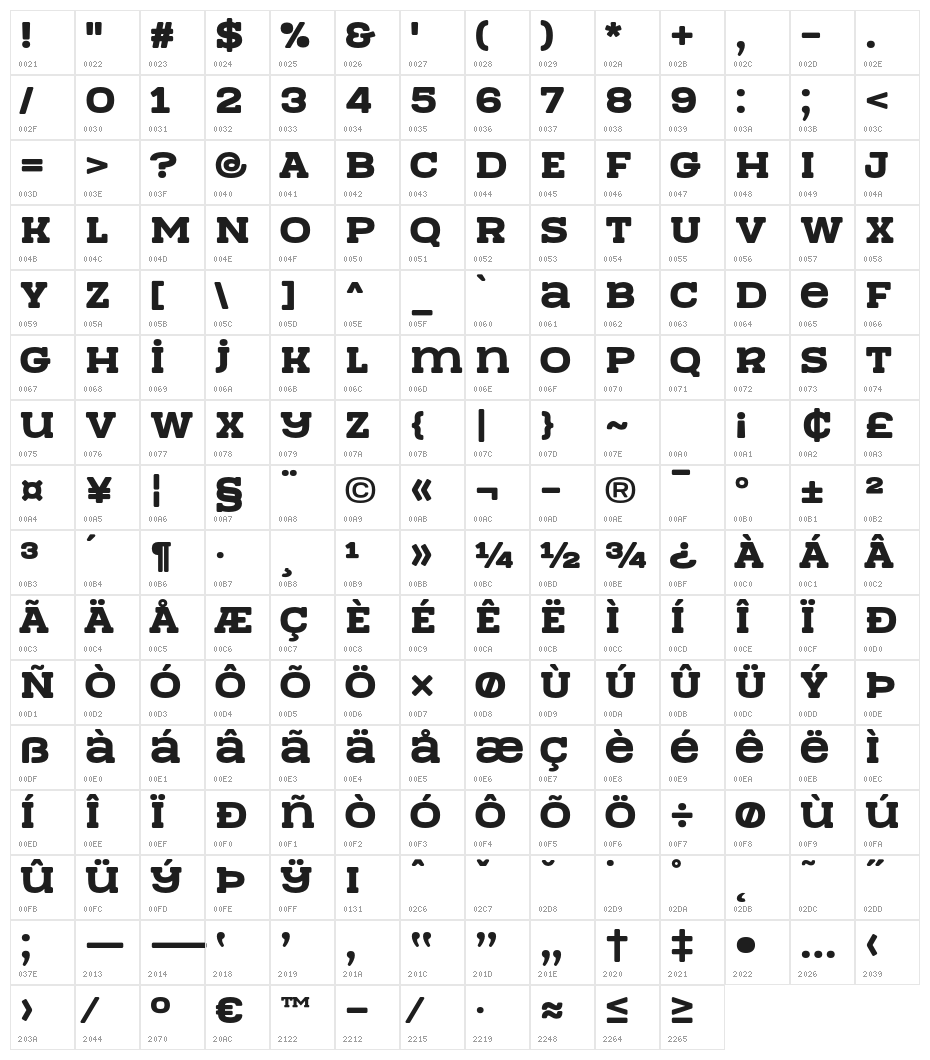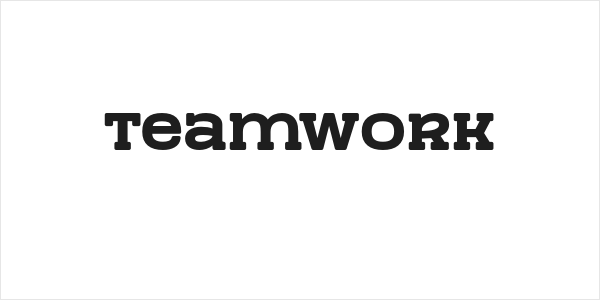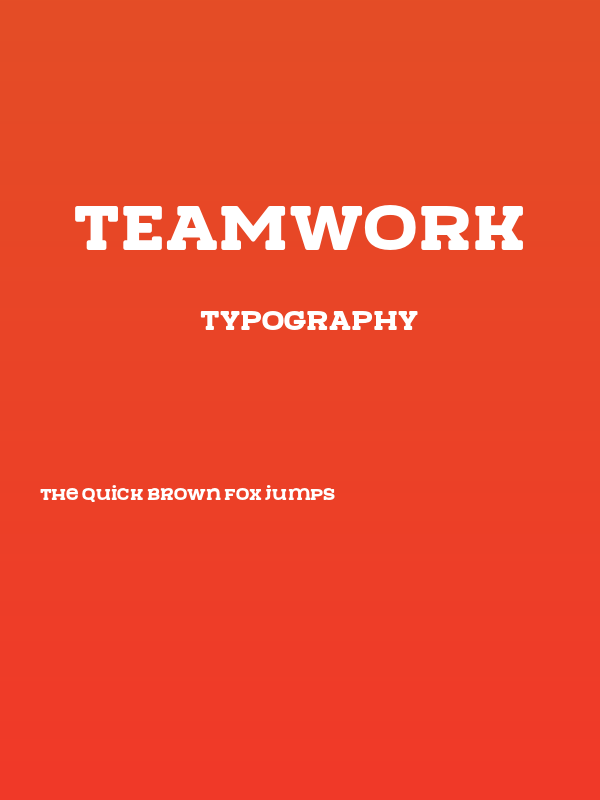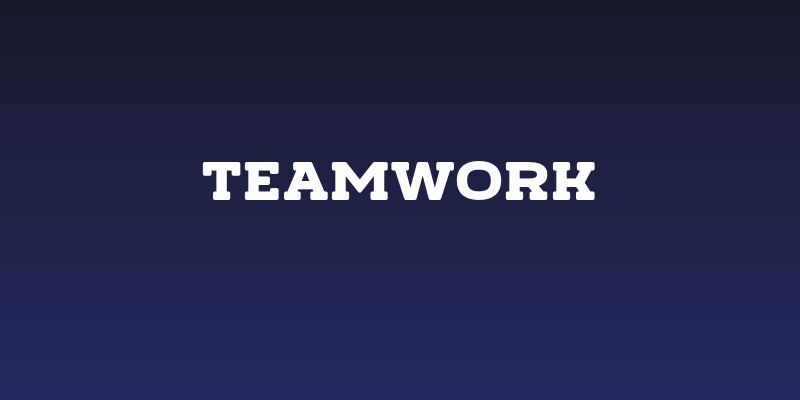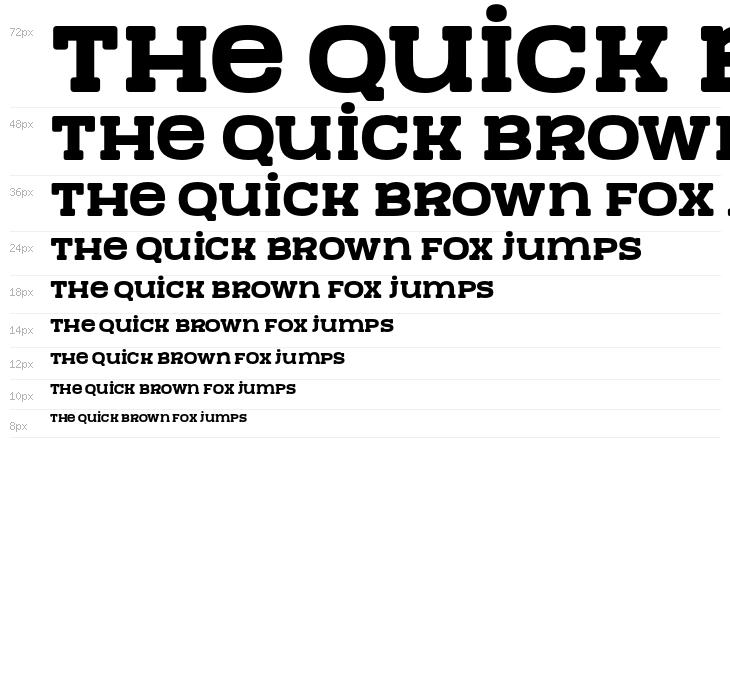
TeamWork Font
TeamWork Description
This font features a bold and robust design with thick, consistent strokes that give it a strong presence. The characters are well-defined with a slight curvature at the terminals, adding a touch of softness to the otherwise solid structure. The uppercase letters are uniform in height, while the lowercase letters maintain a balanced x-height, ensuring readability. The numerals are clear and distinct, matching the boldness of the alphabetic characters. Special characters are crafted with the same attention to detail, making them easily recognizable. This font is ideal for making a statement, with its bold and confident appearance.
| Proposed Projects | Perfect for branding, headlines, posters, and any design requiring a strong, confident typeface. |